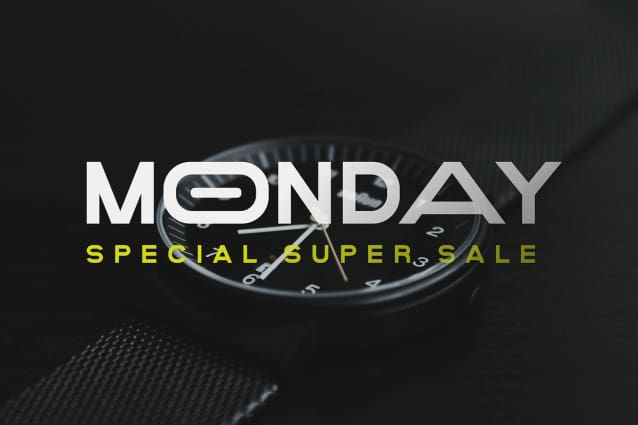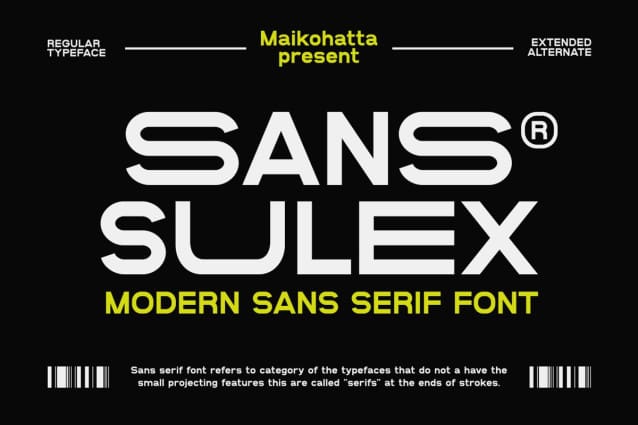
Sans Sulex Font
Sans Sulex Font – Modern Sans Serif Font. This Font is a very flexible choice and can be used in a variety of design contexts. Its ability to provide a clean, professional, contemporary look and its simplicity and visual appeal make this font good for use in the world of graphic design and modern typography.